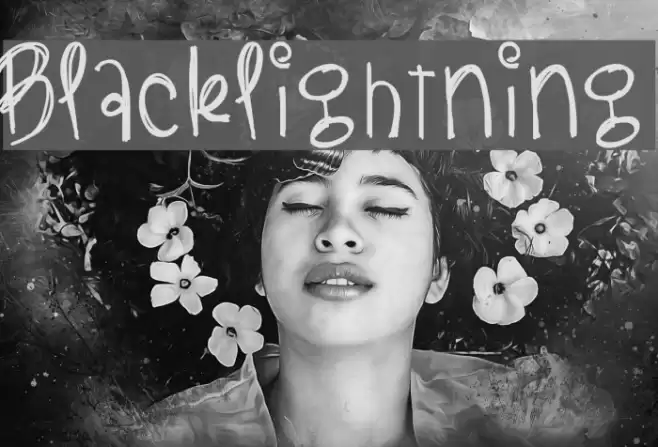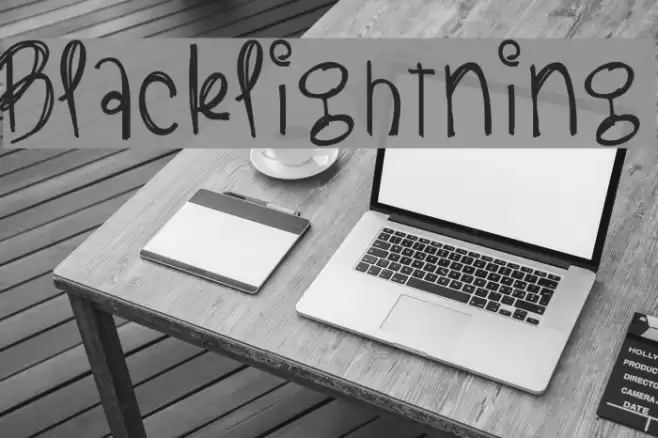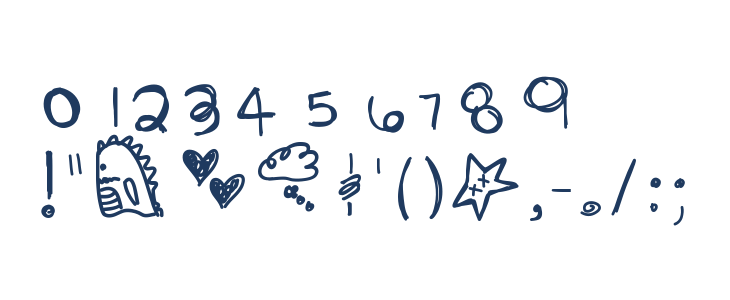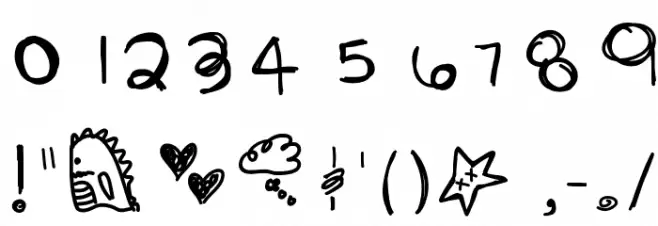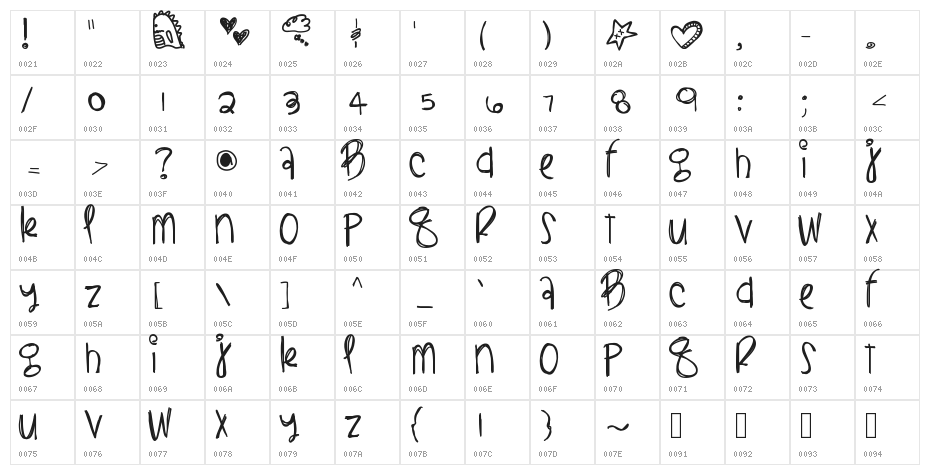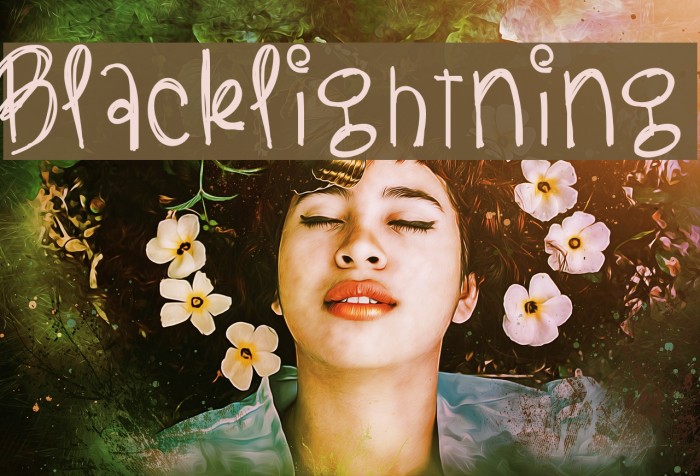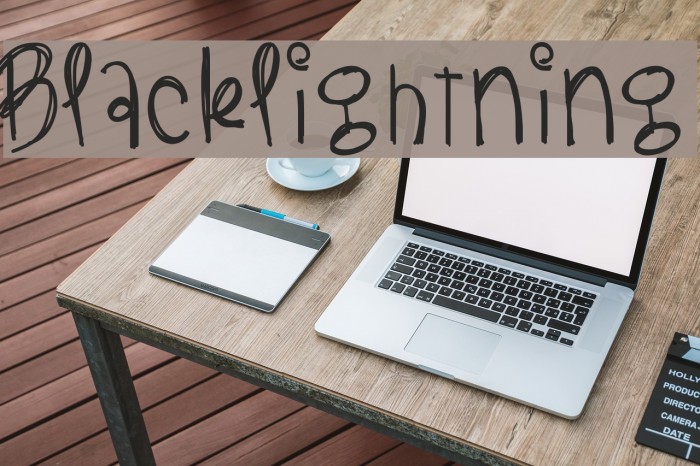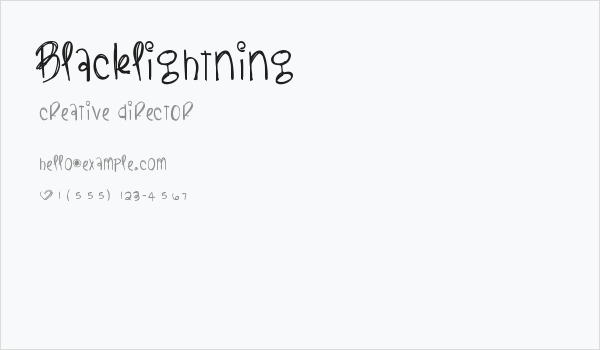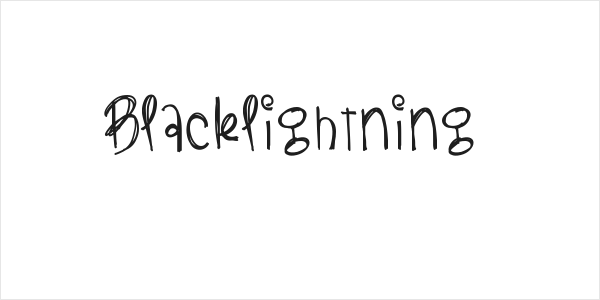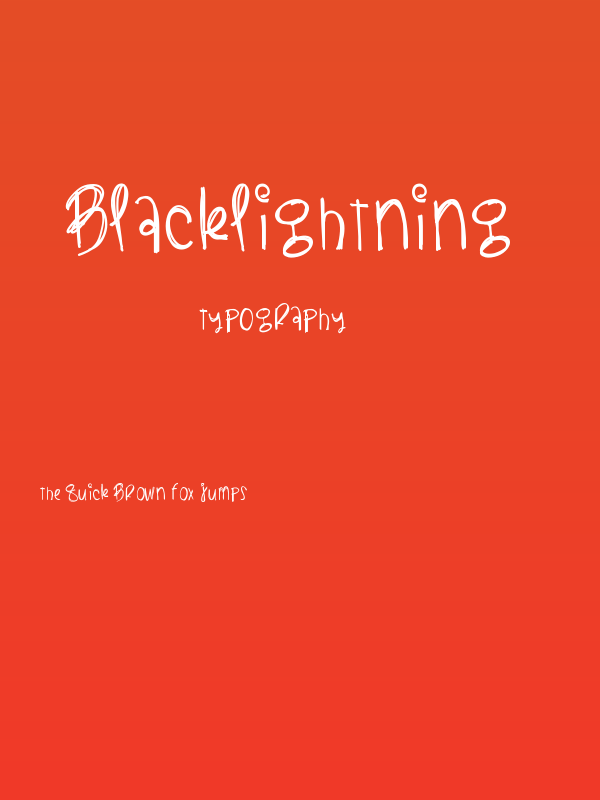
BlackLightning Font
BlackLightning Description
This playful and whimsical font features a handwritten style with a lively and energetic appearance. The characters are slightly irregular, adding a personal and informal touch. The uppercase and lowercase letters are distinct yet harmonious, with a consistent stroke weight that maintains readability. The numbers and special characters complement the overall style, making it versatile for various creative projects. The font's unique charm is enhanced by its decorative elements, such as the playful loops and curves, which give it a friendly and approachable feel.
A playful, handwritten font with lively and whimsical characters from Cartoon fonts.
- Proposed Projects: Ideal for children's books, greeting cards, playful branding, and creative social media graphics.
- Use Case: Logos, Headlines, Creative projects